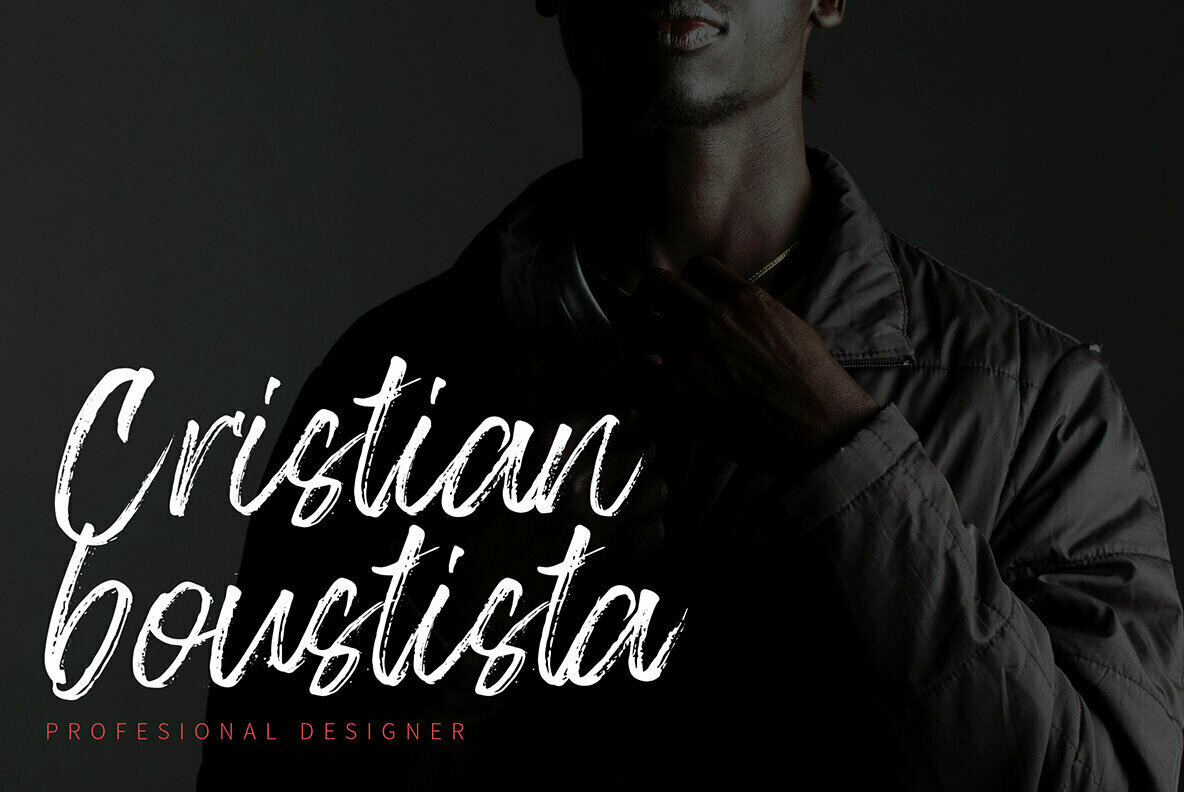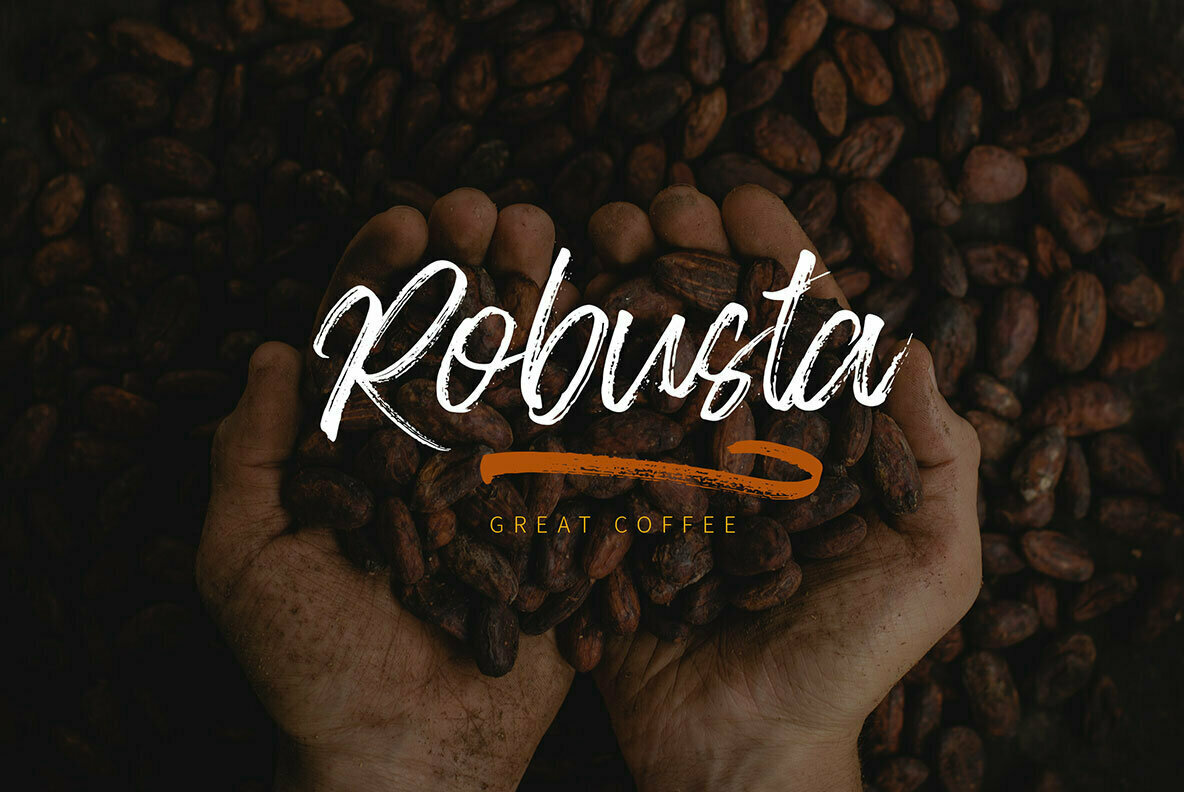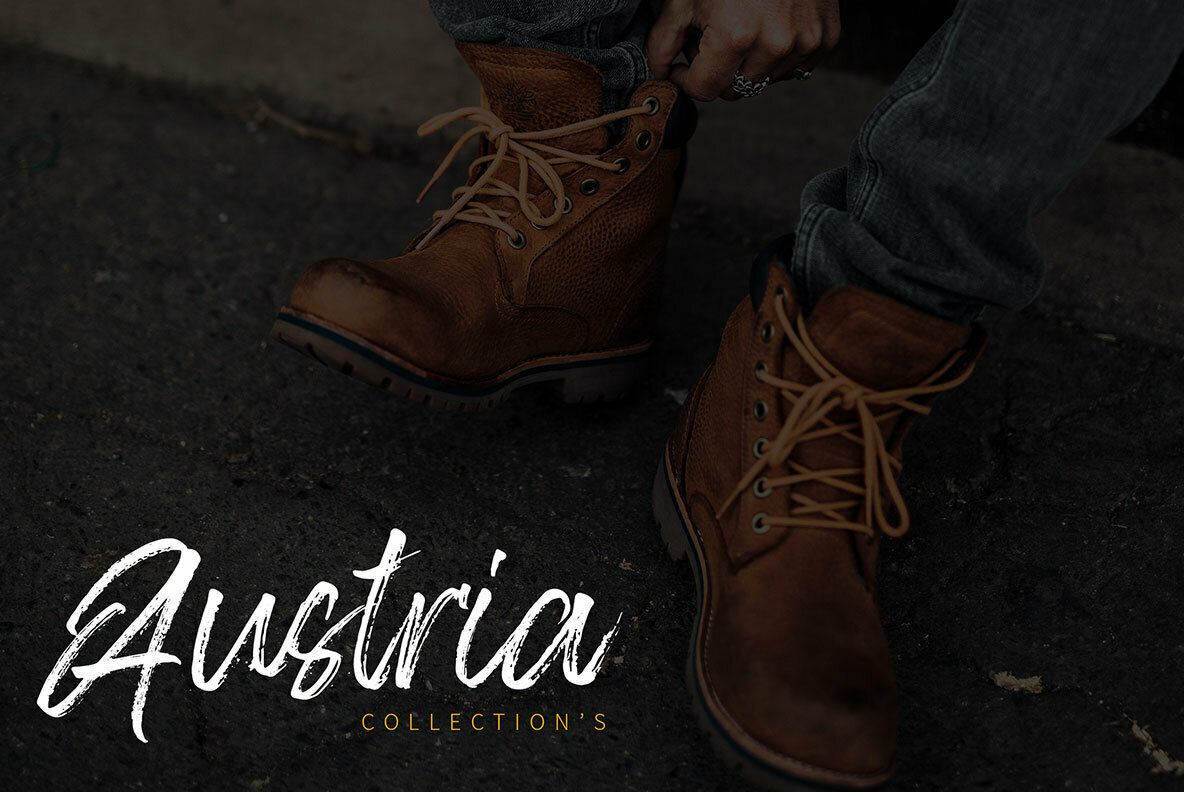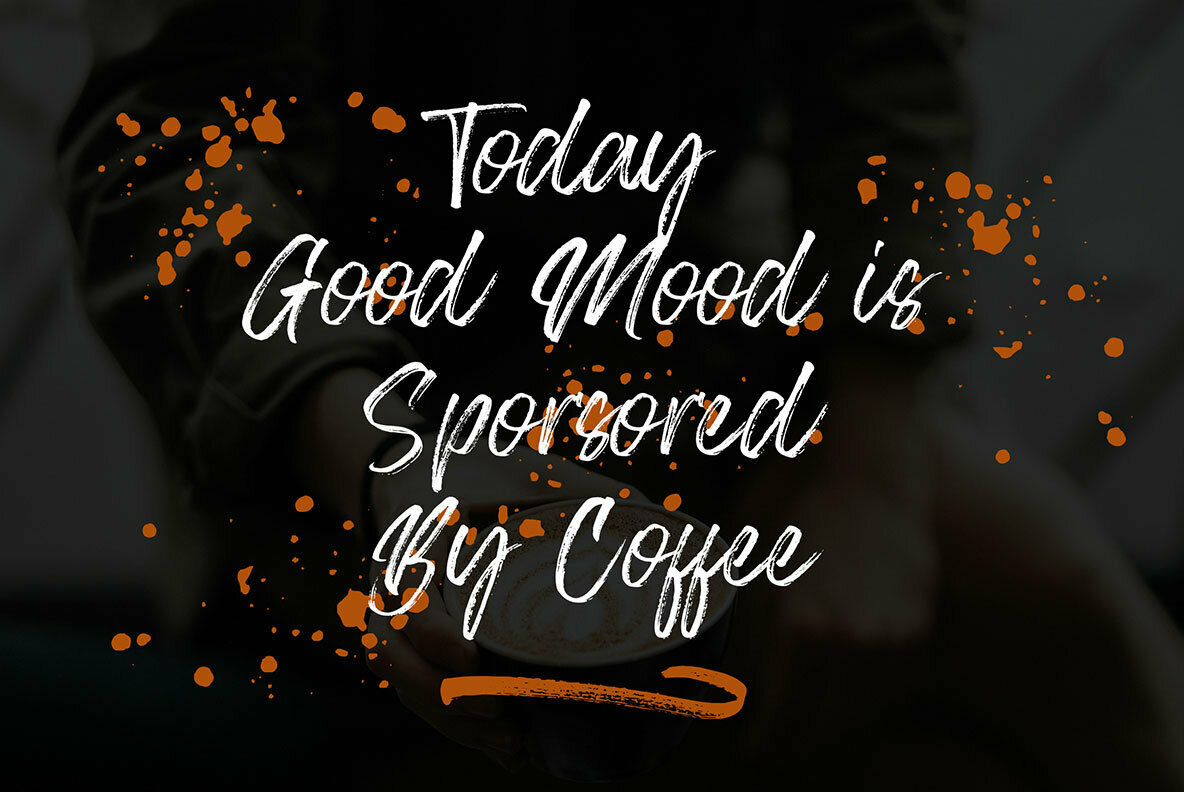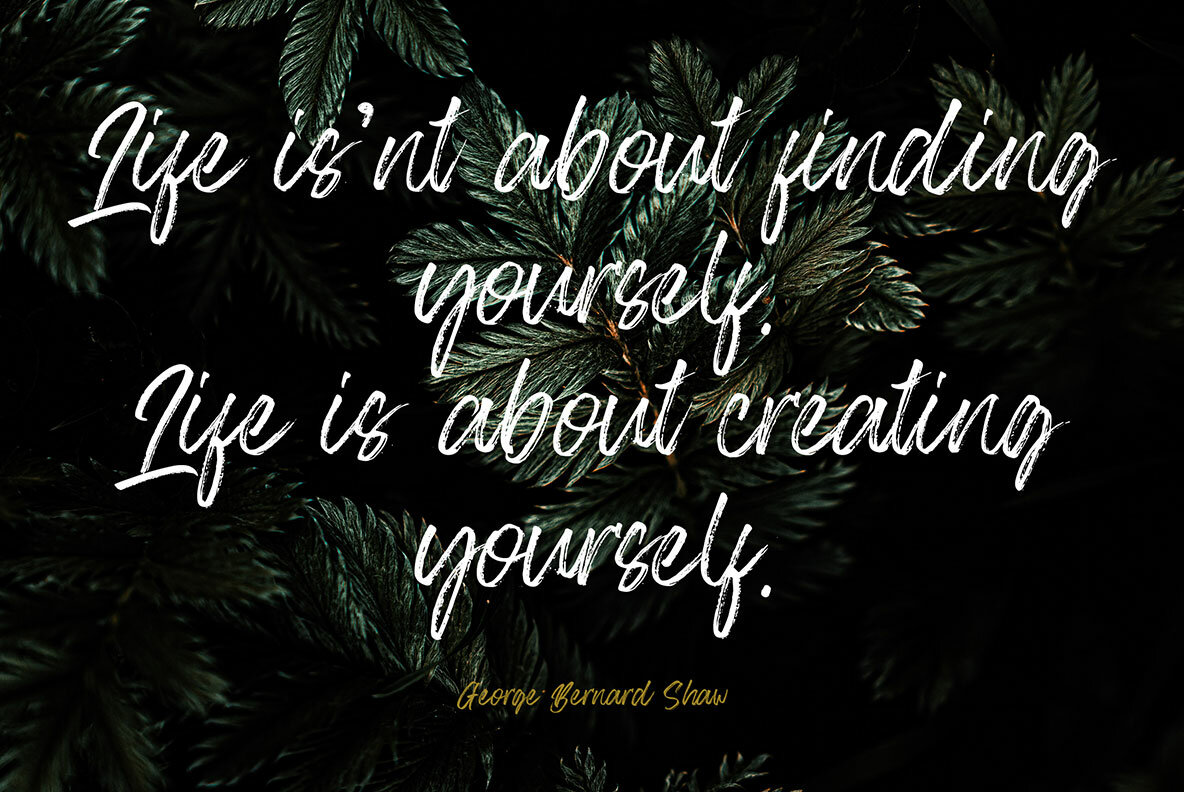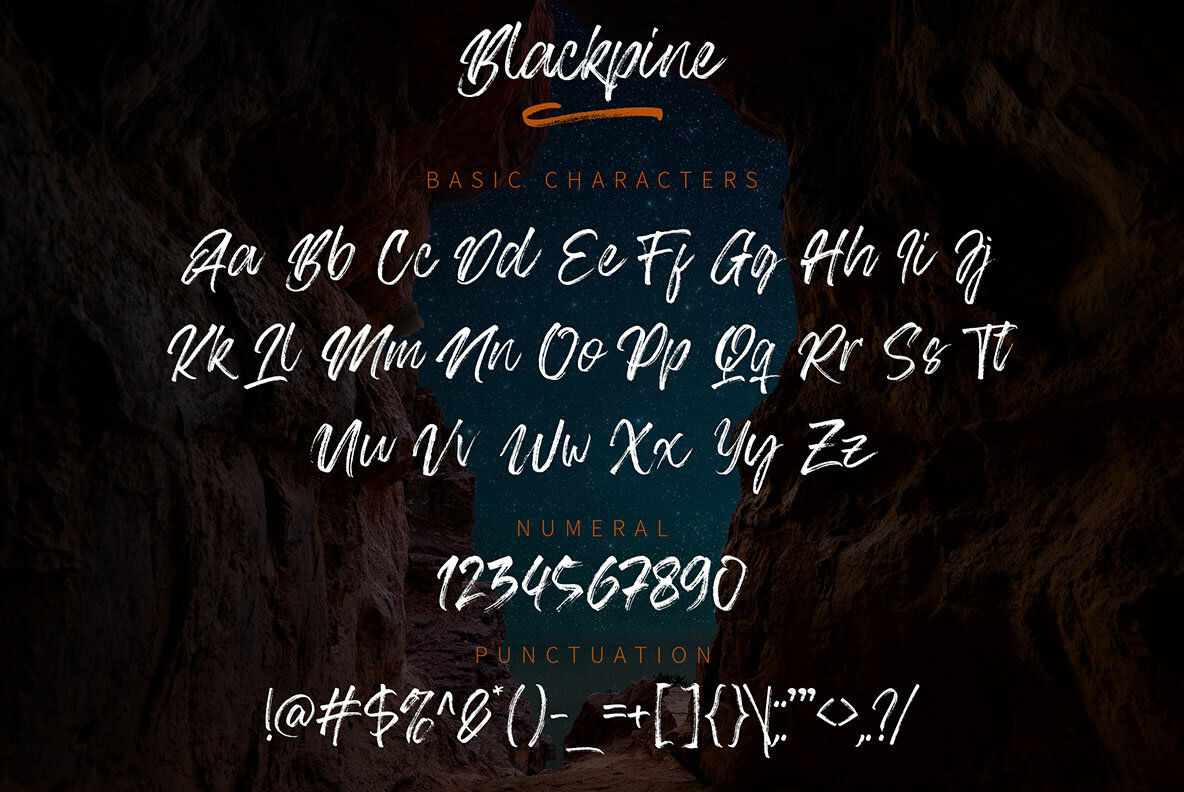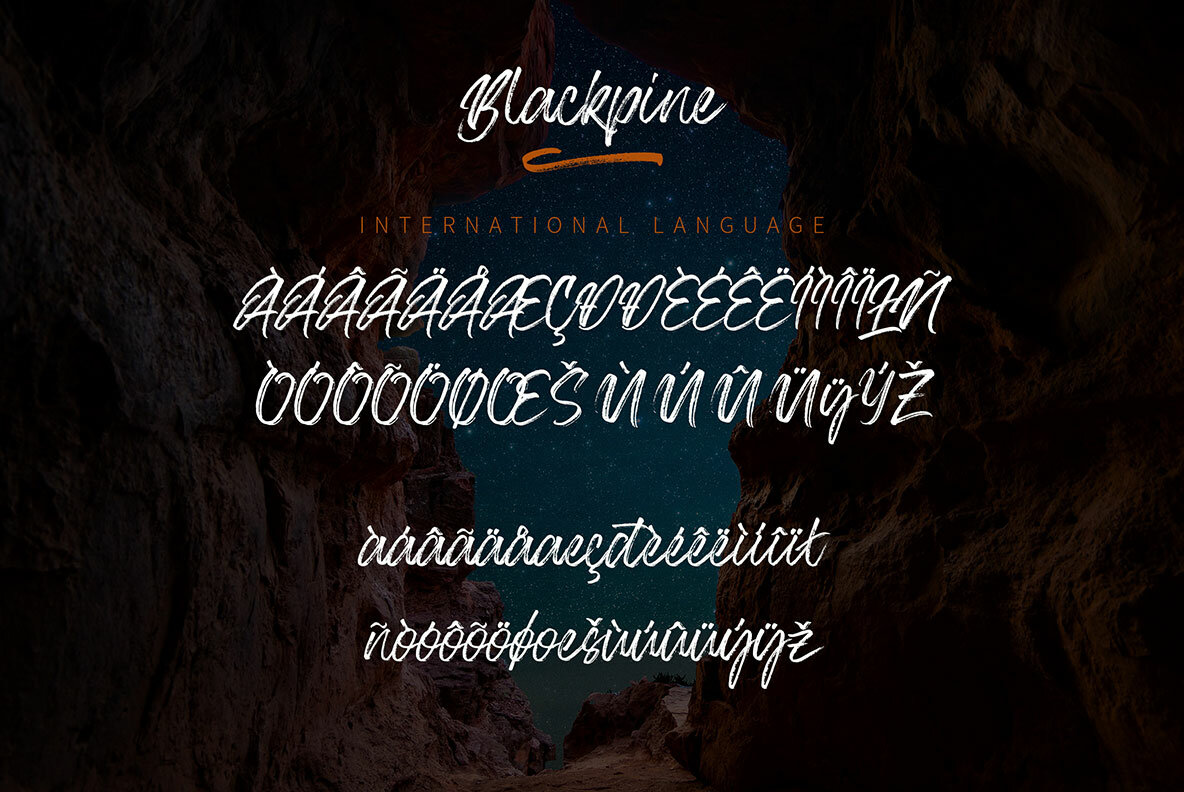
Blackpine Font
Blackpine stands out as a hand-drawn typeface that combines elegance with a modern flair. Its brushstroke design lends a touch of class, making it an ideal choice for fashion, branding, and various creative projects. This font is an excellent fit for crafting striking album covers, memorable logos, and sophisticated advertisements.Blackpine: A Versatile Handbrush Typeface